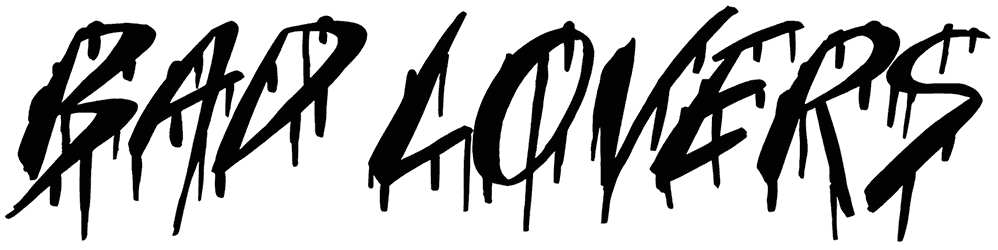
Bad Lovers Font
To assemble a special design for a Halloween party, write a memorable quote, or even make invitation cards for a holiday, what can be working out than a horror font?
Here, from RBs’ inventory, a freebie product called Bad Lovers originated to astonish with any illustration amazingly. No concern for its lack of lowercase letters and numbers, it finds its route in staying ahead of others. Look into our stock, which is increasing by the minute, to have first dibs on all you need!